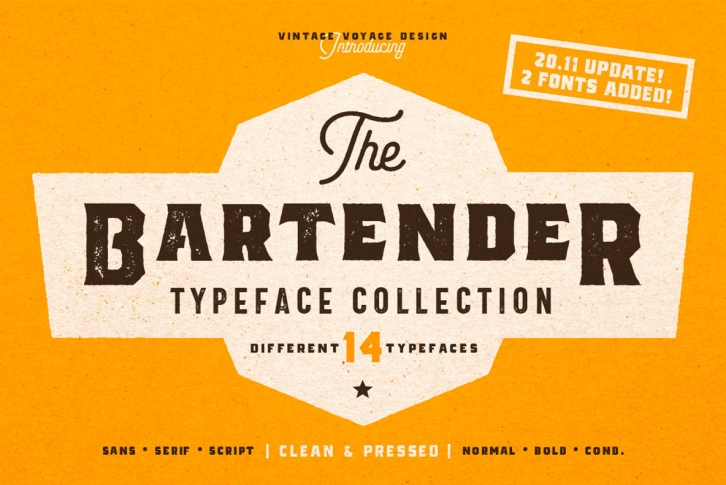
This is essentially 3 brand new products being released together instead of separately.
The Bartender Collection its a 14 fonts created multiple that could work together seamlessly. Six different typefaces comes with clear and pressed styles.
The Bartender Collection gives you many variations to hit the target in your design projects. You can create vintage looks graphics with pressed style and serif fonts, or you can use sans and be more modern. Perfectly for branding, prints, t-shirts or posters.
The Bartender Collection has full glyph set with some alternates (Aa, Bb, Hh).